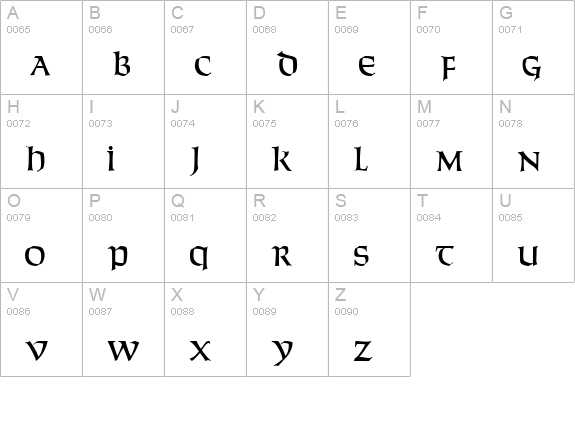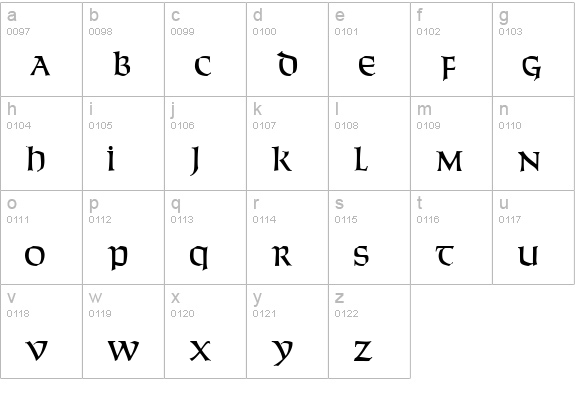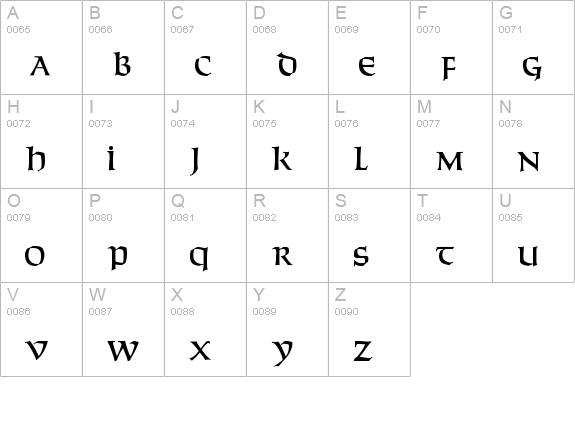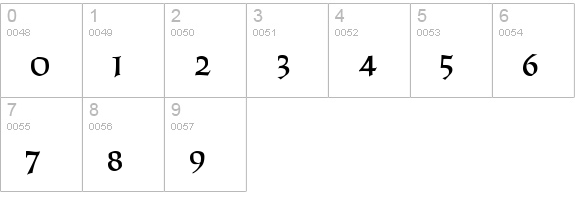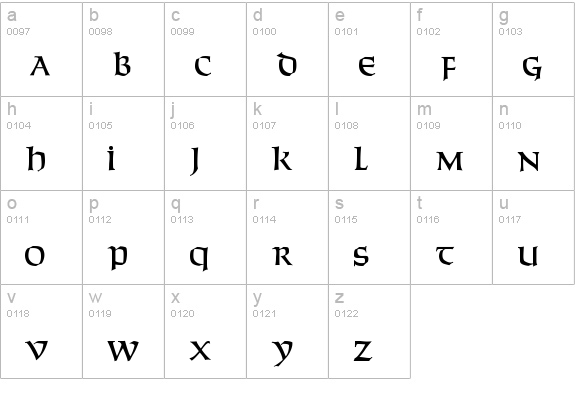
Solemnity Font Details
Solemnity font is a brilliantly crafted typeface that embodies elegance, sophistication, and a touch of solemnity. With its intricate details and graceful curves, this font exudes a sense of refined beauty that is perfect for projects requiring a touch of class. Whether used for wedding invitations, formal event programs, or luxurious branding materials, Solemnity font adds a distinctive flair that sets it apart from the ordinary. What makes Solemnity font even more remarkable is that it is available for free download at FontsMarket.com. This means that anyone can access and enjoy the beauty of this font without any cost. The generosity of making this font freely available is a testament to the creators' dedication to providing high-quality resources to designers, artists, and enthusiasts alike. With Solemnity font, you not only get access to a visually stunning typeface but also an opportunity to elevate your creative projects without breaking the bank. Its versatility allows it to be used in a variety of contexts, from print to digital mediums, ensuring that your designs remain captivating and visually appealing across different platforms. When you choose Solemnity font, you choose an exceptional combination of grace, style, and affordability. Download this remarkable font for free at FontsMarket.com and witness how it transforms your designs into masterpieces.